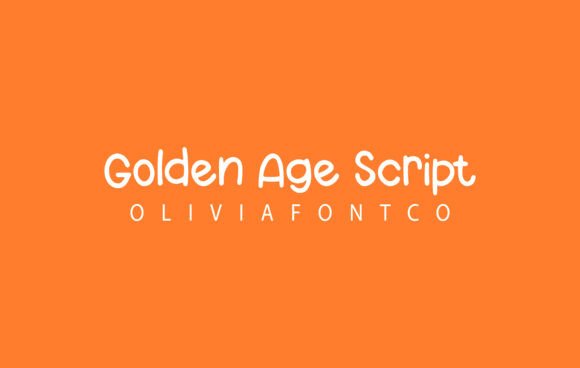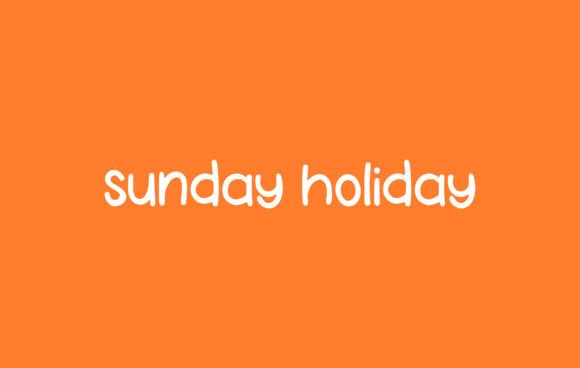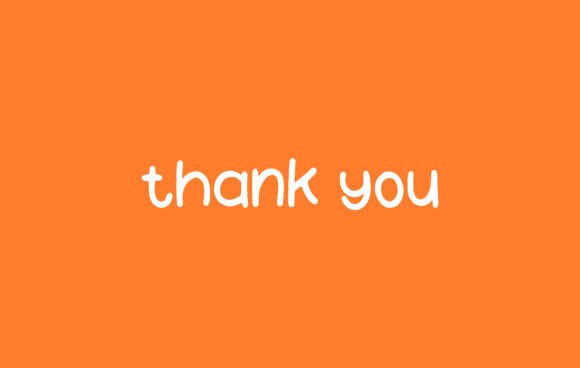
Golden Age Script Font
About the Golden Age Script Font
Make a bold statement with Golden Age Script Font, a powerful and memorable font. Golden Age Script is a charming, rounded script font with a playful bounce and a warm, nostalgic feel. Perfect for children’s designs, cozy packaging, friendly branding, and uplifting quotes. Its smooth curves and cheerful personality make it endlessly approachable.
Golden Age Script thrives in applications requiring a touch of vintage charm and approachability. It excels in headlines, short text blocks on packaging, and branding elements where a friendly, nostalgic feel is desired. Consider it for children’s books, craft-related projects, or food and beverage brands aiming for a heartwarming aesthetic. However, its playful nature makes it less suitable for large bodies of text or UI elements where readability is paramount.
Pairing Golden Age Script with a clean sans-serif like Open Sans for body text creates a balanced and accessible design. For a more sophisticated look, consider pairing it with a classic serif font such as Garamond or a geometric sans-serif like Futura for contrast. Avoid pairing it with other script fonts as this can become visually overwhelming.
The font’s overall personality is best described as cheerful and nostalgic, conveying warmth and approachability. Its rounded forms and bouncy baseline add to its friendly and inviting character, making it ideal for projects that aim for a comforting and lighthearted mood.
Golden Age Script Font Usage Examples
Golden Age Script Font Example